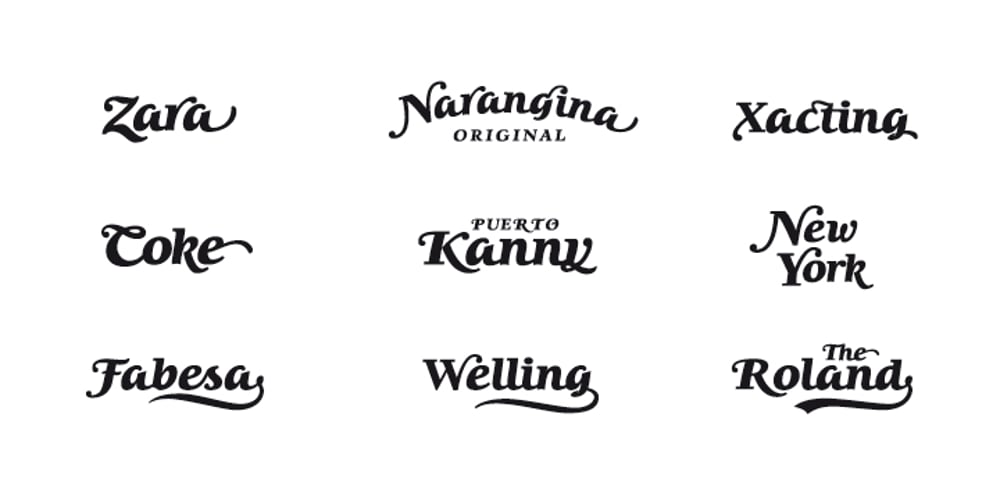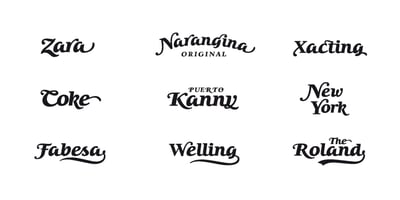
Lila Pro Heavy Font Family was designed by Olcar Alcaide and published by Eurotypo. Lila Pro Heavy contains 1 styles and family package options. The Lilac (or Syringa vulgaris), a slightly vigorous plant, gives a nice colour to the place where its located, well maintained from one season to another and even when not in flower, the colour of its foliage and compact form makes it attractive enough. Lila Pro was created on the coast of Andalucía, inspired by its vibrant colour’s contrasts, and lush climate. This new script has all the advantages of OpenType technology that allows a variety of combinations: standard ligatures, contextual alternates, discretional ligatures, word ending and tails. Specially designed for creating logos for products and packaging, this font can also be used as body text for its good legibility and accurate kerning.